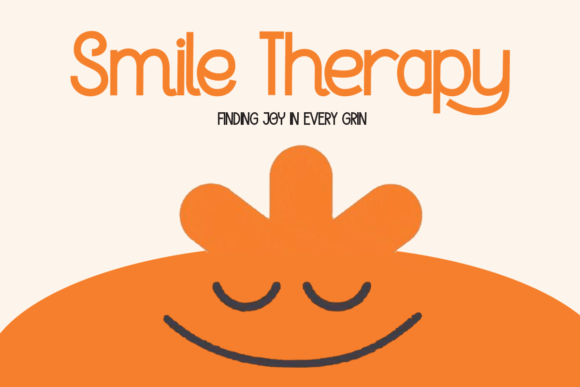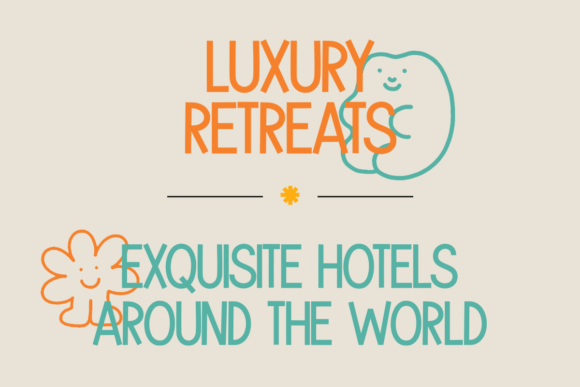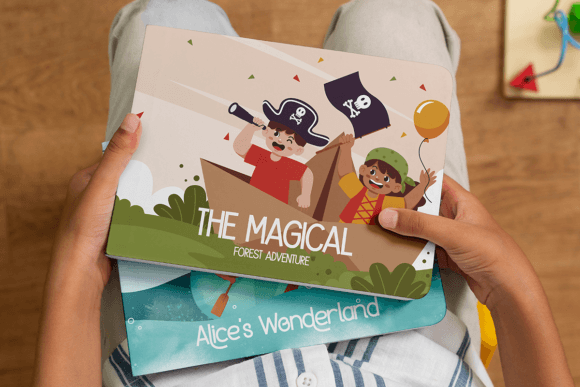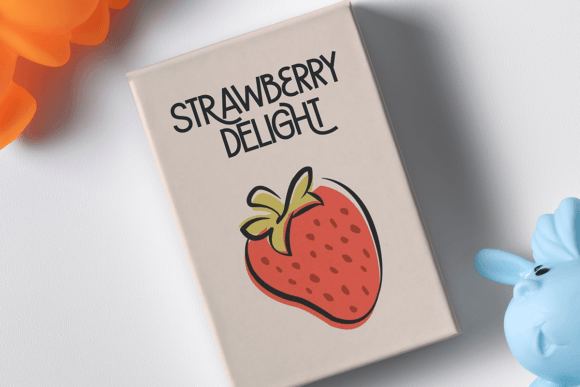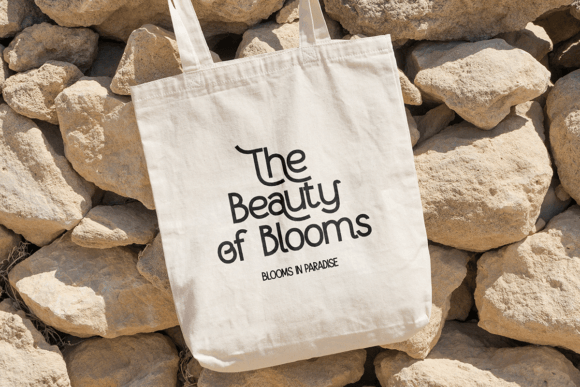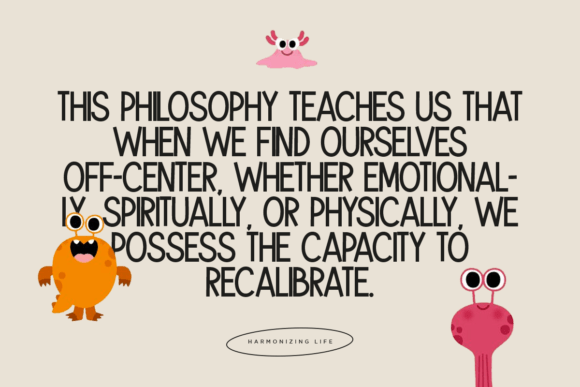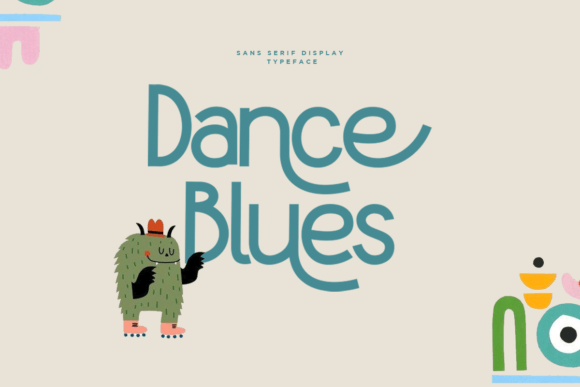
Dance Blues Font: Add a Playful Touch to Your Designs
Are you tired of using the same old fonts in your designs? Look no further than Dance Blues Font, a unique and playful font that’s sure to add a fun touch to any project. In this article, we’ll introduce you to the Dance Blues Font, explore its features, and discuss how you can use it to take your designs to the next level.
What is Dance Blues Font?
Dance Blues Font is a one-of-a-kind, handwriting-style font that’s perfect for designers and crafters looking to add a personal touch to their work. Its unique style is sure to make your designs stand out from the crowd, whether you’re creating logos, branding materials, social media posts, or anything else that needs a bit of personality.
Key Features of Dance Blues Font
So, what makes Dance Blues Font so special? Here are just a few of its key features:
- Unique and playful style: Dance Blues Font has a fun, handwriting-style aesthetic that’s sure to add a touch of whimsy to your designs.
- Variety of Glyph variations: With Dance Blues Font, you’ll have access to a range of Glyph variations, allowing you to add even more personality to your designs.
Uses for Dance Blues Font
Dance Blues Font is incredibly versatile, making it perfect for a wide range of design projects. Here are just a few ideas to get you started:
- Logos and branding: Add a playful touch to your logo and branding materials with Dance Blues Font.
- Social media posts: Make your social media posts stand out with this fun and unique font.
- Photography and watermark: Use Dance Blues Font to add a personal touch to your photos and watermarks.
- Advertisements and product design: Add a bit of whimsy to your ads and product designs with this eye-catching font.
- Invitations and wedding design: Make your invitations and wedding designs truly special with Dance Blues Font.
- Book covers and stationery: Use this font to add a touch of personality to your book covers and stationery.
Tips for Using Dance Blues Font
To get the most out of Dance Blues Font, here are a few tips to keep in mind:
- Experiment with different sizes and colors: Don’t be afraid to try out different sizes and colors with Dance Blues Font to find the perfect look for your design.
- Mix and match with other fonts: Combine Dance Blues Font with other fonts to create a unique and eye-catching design.
- Use it sparingly: While Dance Blues Font is fun and playful, it’s best used sparingly to avoid overwhelming your design.
| Font Name | Dance Blues Font |
| Author | Taboja Studio |
In conclusion, Dance Blues Font is a unique and playful font that’s perfect for designers and crafters looking to add a fun touch to their work. With its OpenType features and Glyphs panel support, variety of Glyph variations, and versatility in use, this font is sure to become a go-to in your design arsenal. So why not give it a try and see how Dance Blues Font can take your designs to the next level?